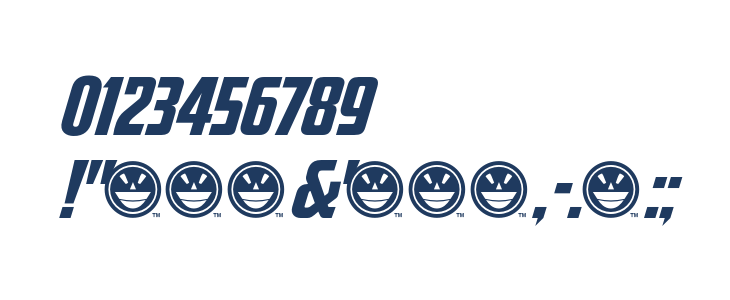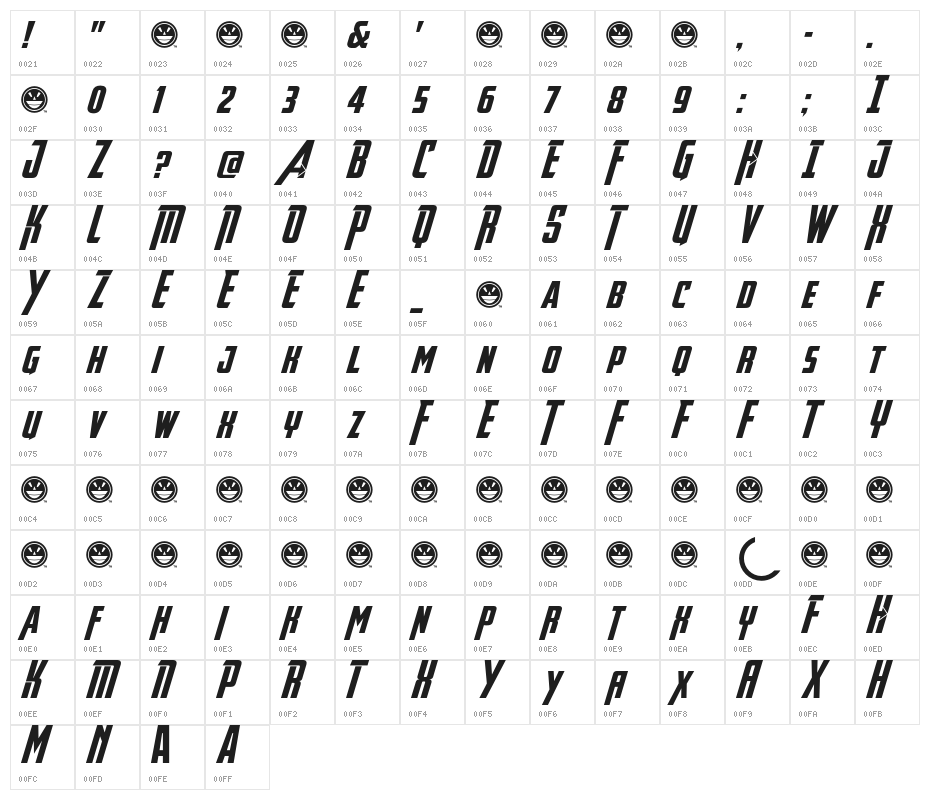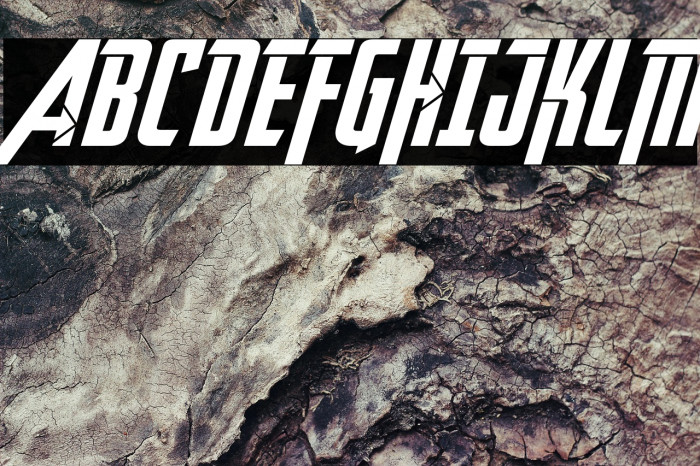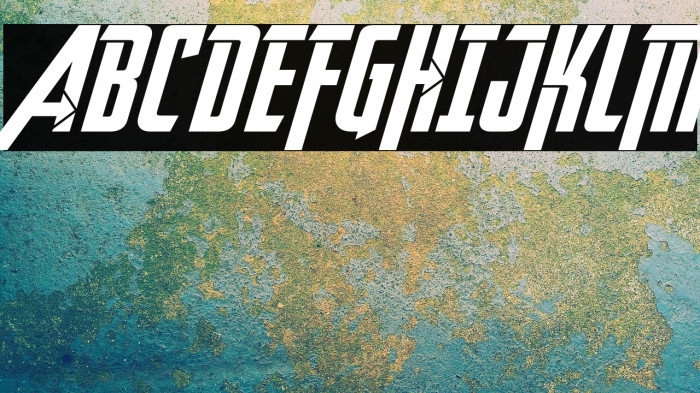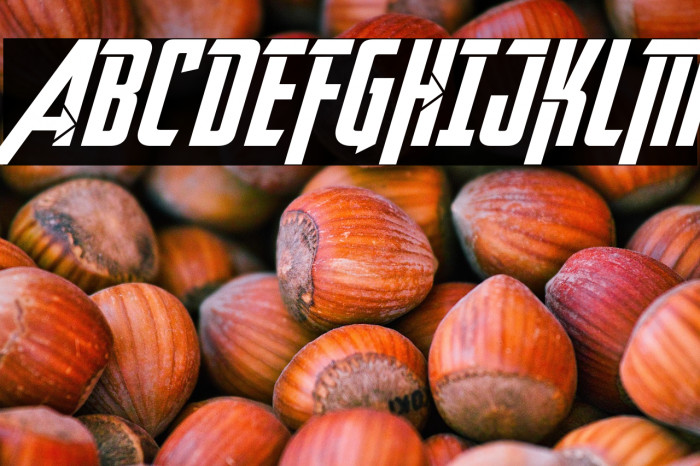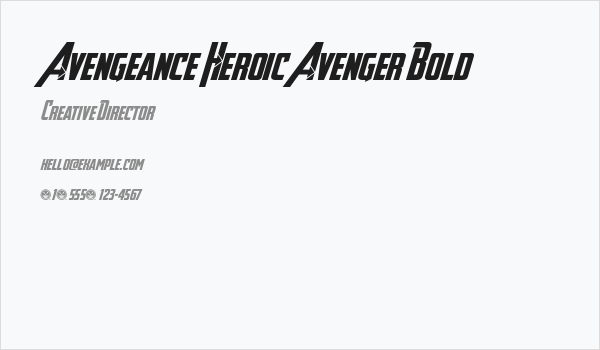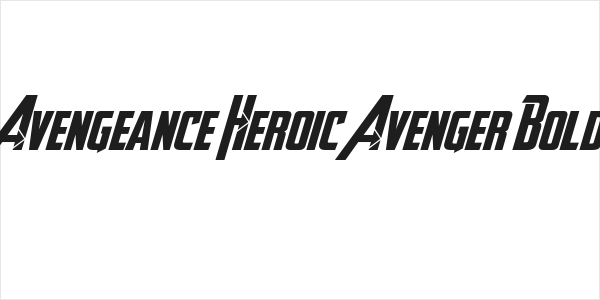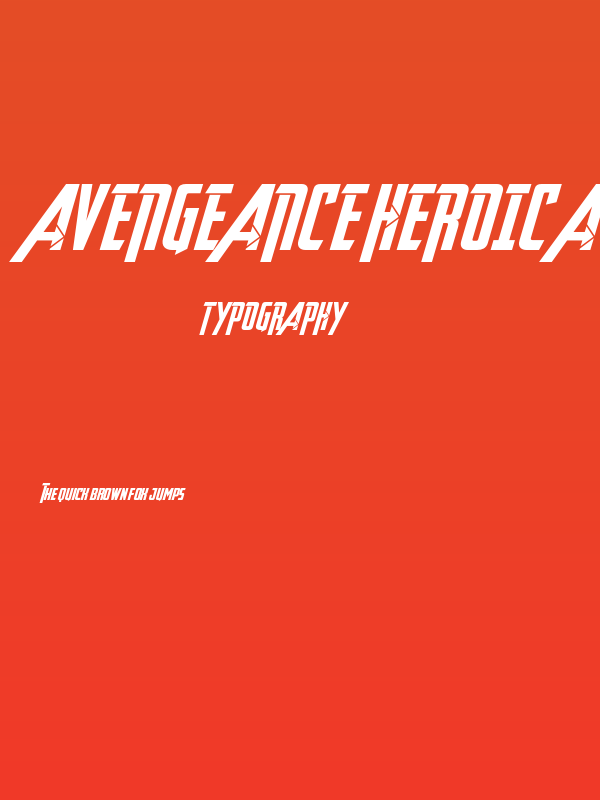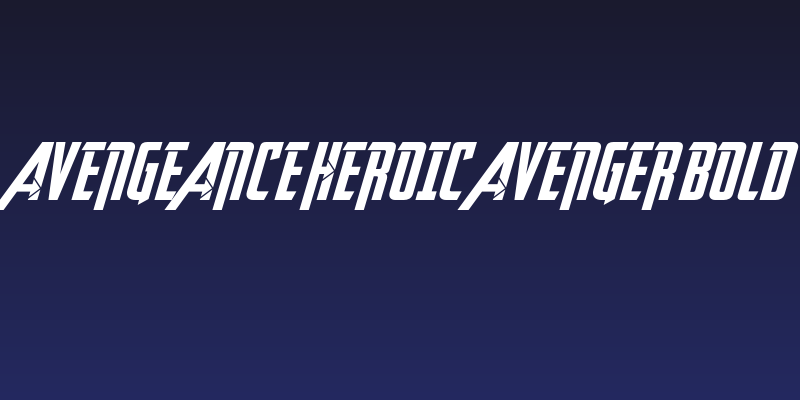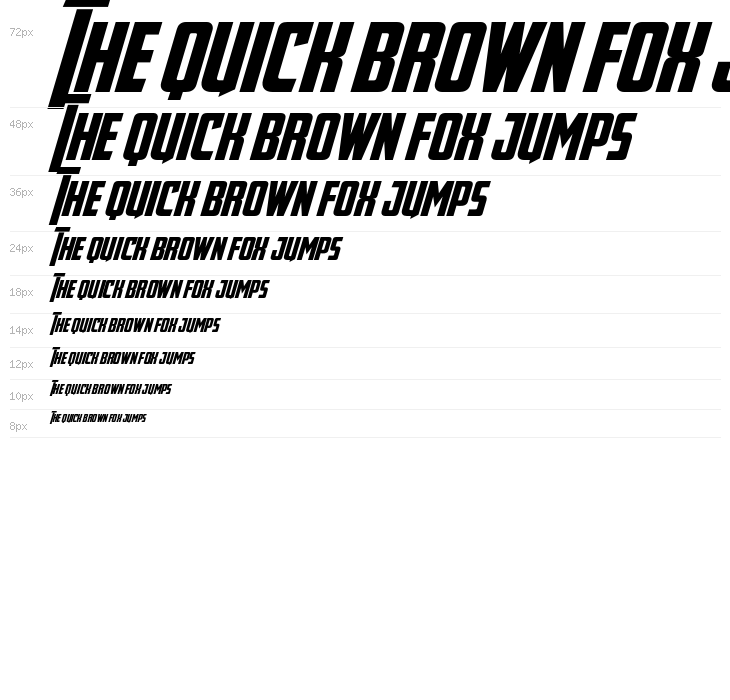
Avengeance Heroic Avenger Bold Font
Avengeance Heroic Avenger Bold Description
This font features a bold and dynamic design with a strong emphasis on angular lines and sharp edges, creating a sense of movement and energy. The uppercase letters are particularly striking, with a slanted orientation that adds to the font's dynamic appearance. The lowercase letters maintain the same boldness and angularity, ensuring consistency throughout. Numbers are equally bold and maintain the same slanted style, making them stand out. The special characters, including punctuation marks, are designed to complement the overall style, with some featuring unique design elements that enhance the font's distinctive look. This font is ideal for projects that require a bold and heroic aesthetic, such as posters, logos, and branding materials.
Proposed ProjectsIdeal for superhero-themed posters, dynamic logos, branding materials, and eye-catching headlines.